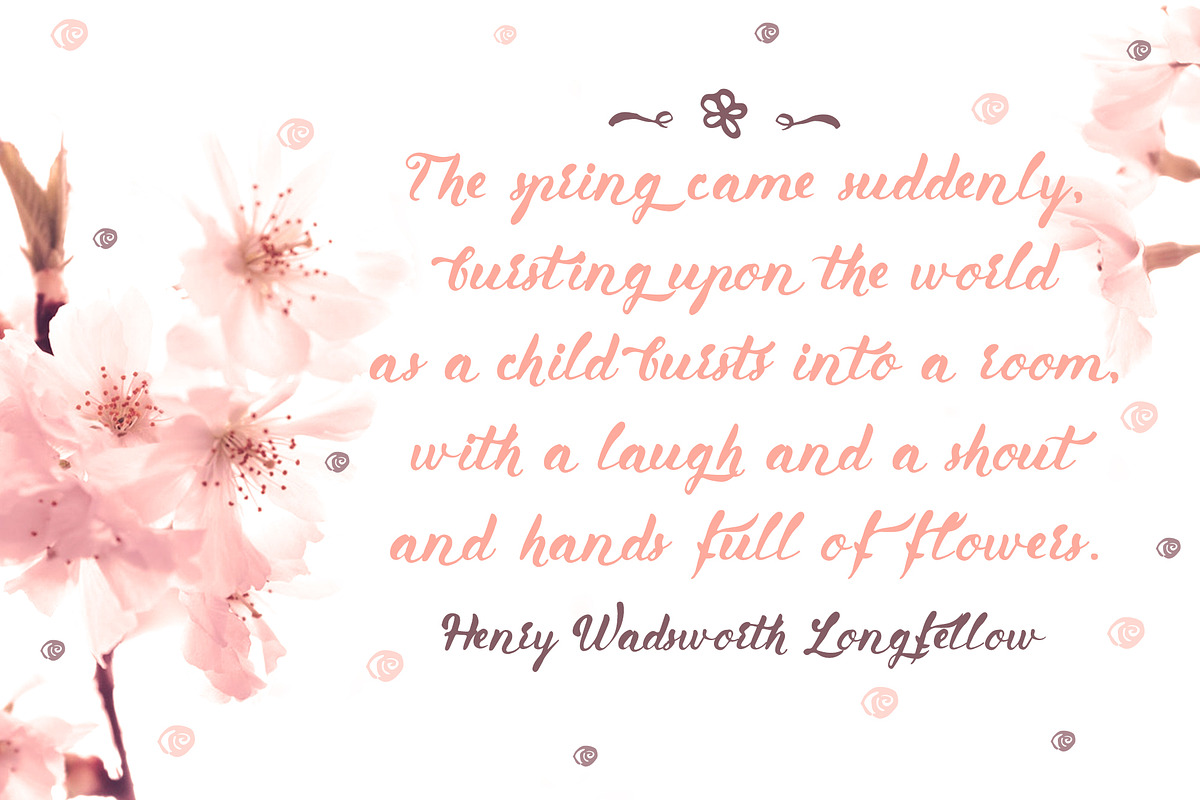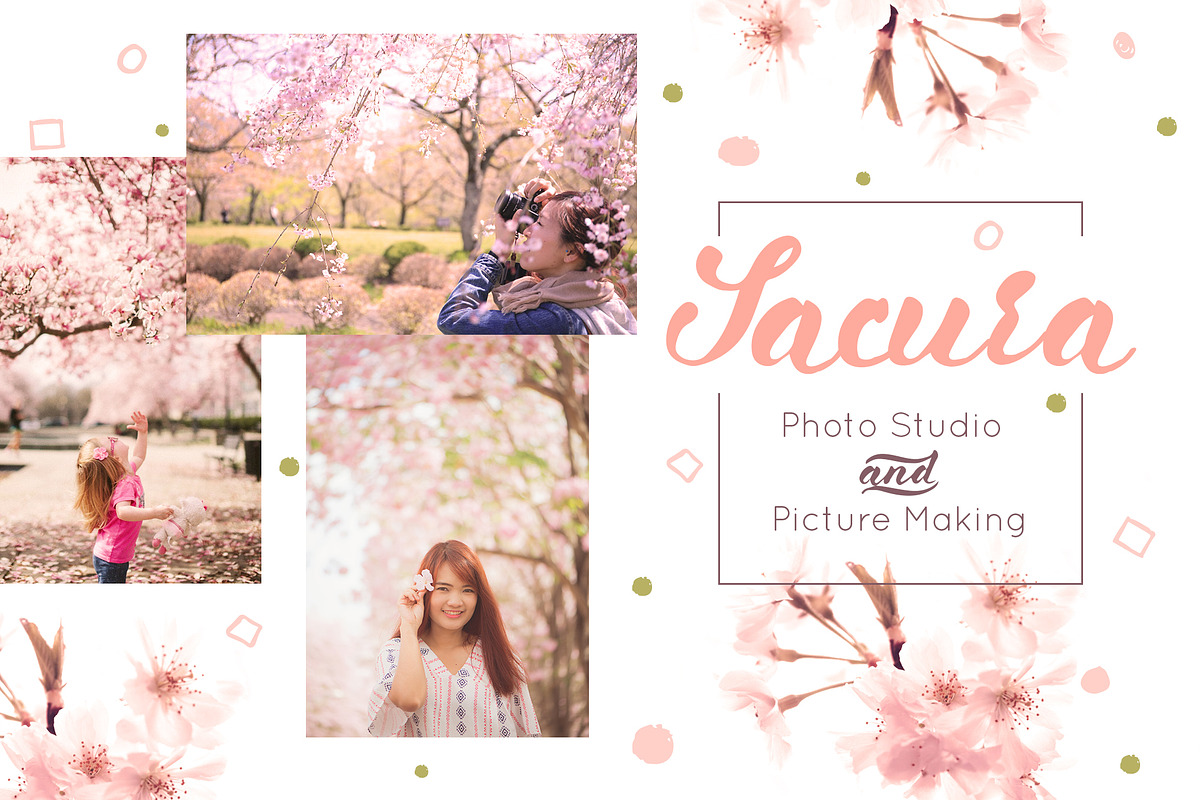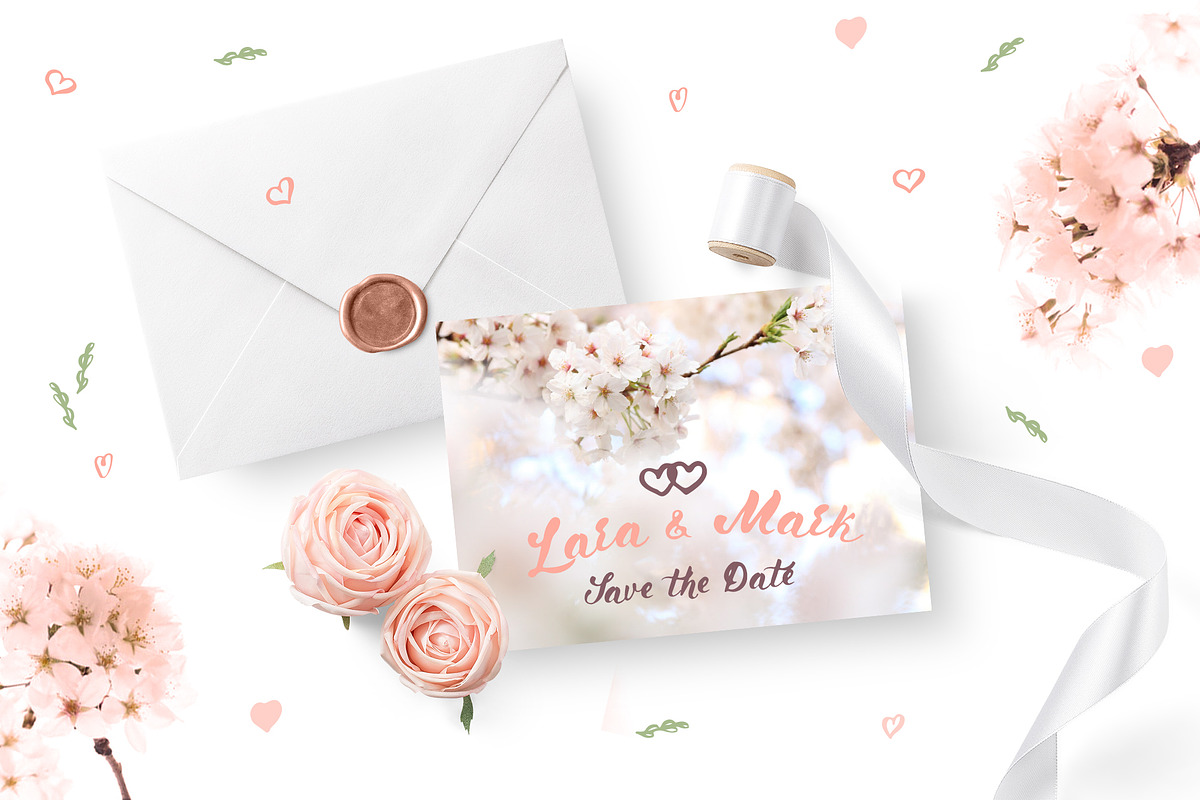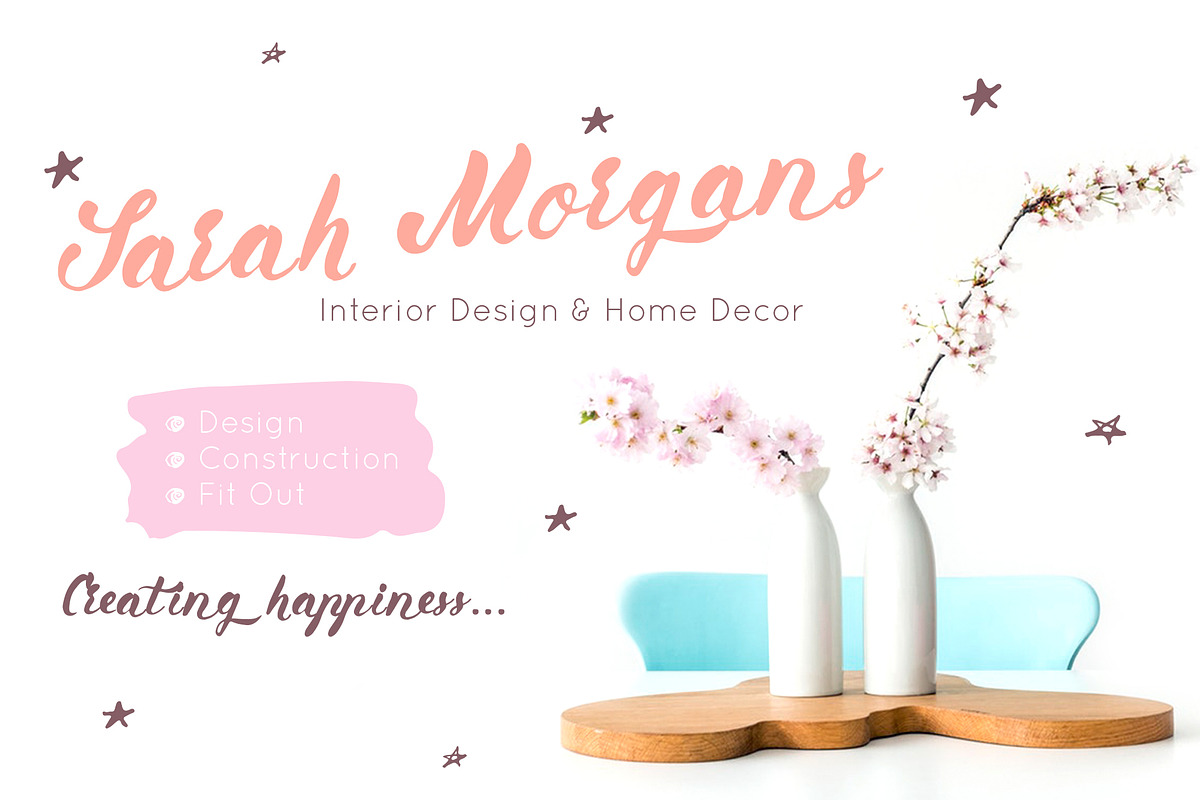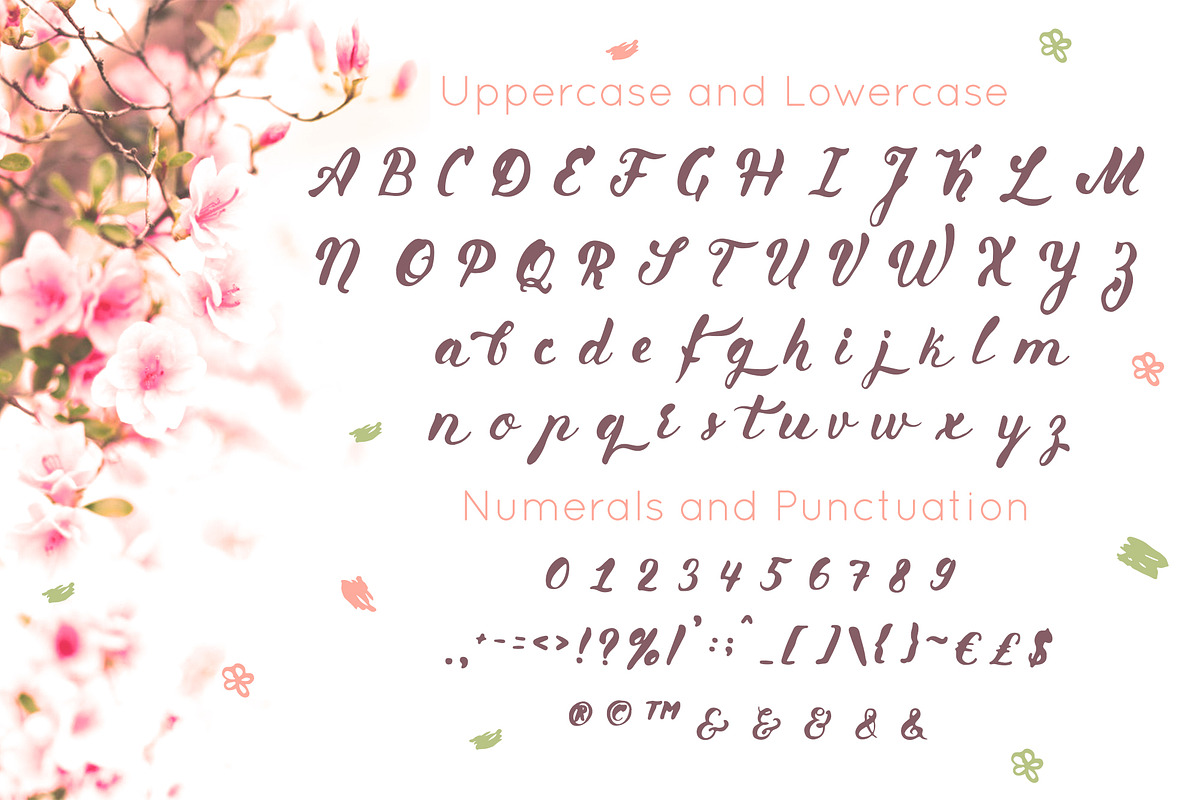
Primavera is handwritten brush font
Are you feeling the taste and smell of coming spring? I do! So let me introduce my new Primavera font as reflection of my thoughts. This font with with extra design elements and floral decorations will help you to create special and touching typographical design for every day or the happiest day in life. It is really new, universal and modern font with handdrawn flowers, hearts, leaves...! The owner of endless possibilities! There are also 15 premade greeting cards included.
It is perfect for multiple contexts. Works great in posters, logos, headlines, packaging, advertising, branding and so much more. This font will easily help you to create the best romantic, urban or rustic, elegant or dynamic designs. This font will help you to make your projects trully hand-painted realistic and natural.
Primavera consists of:
Extra design elements
Primavera font both have uppercase and lowercase letters, numbers & basic punctuation, multiligual support (French, German, Italian, Norwegian, Portuguese, Spanish, Swedish, Swiss German) and extra design elements